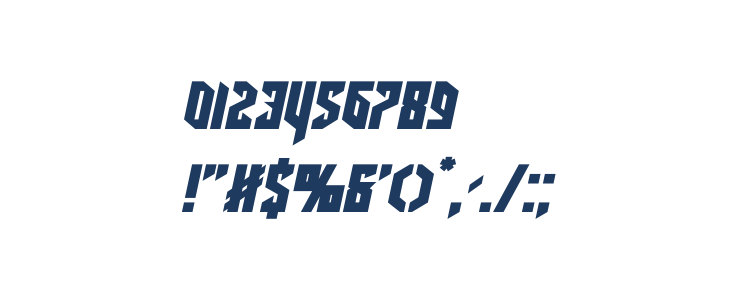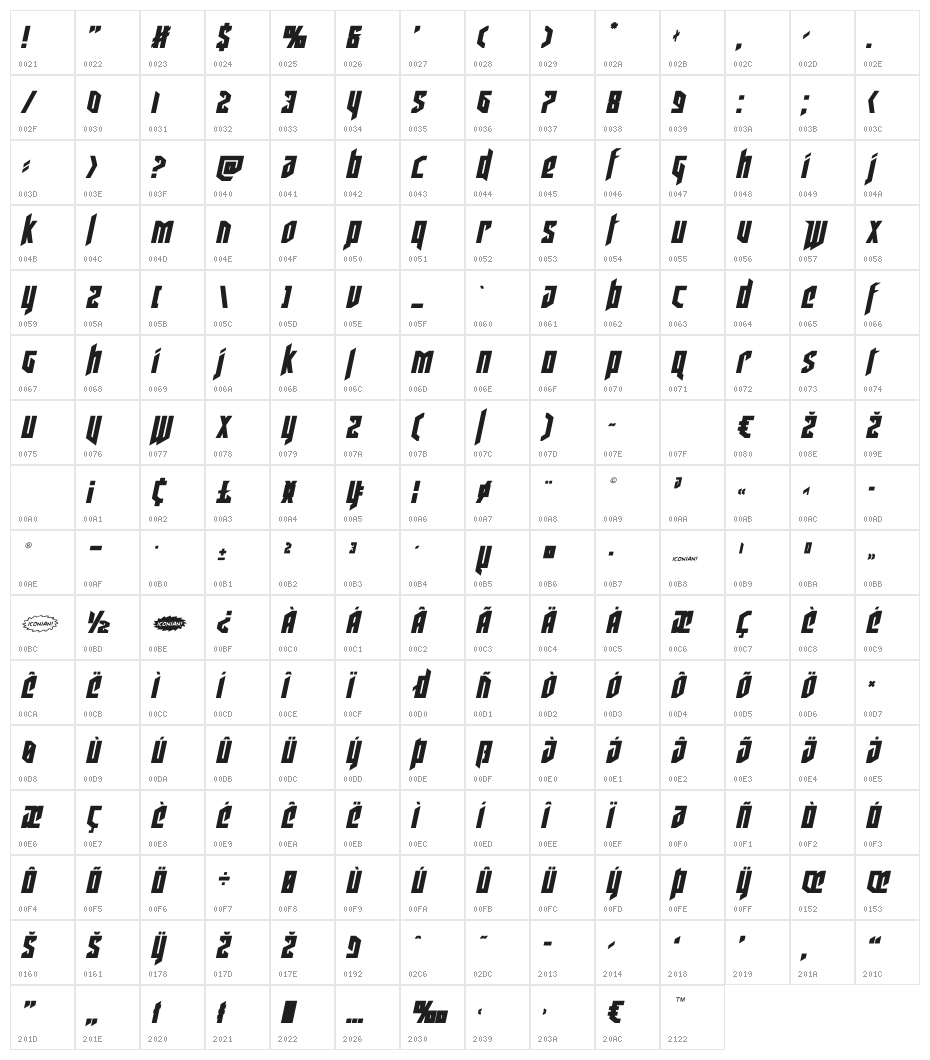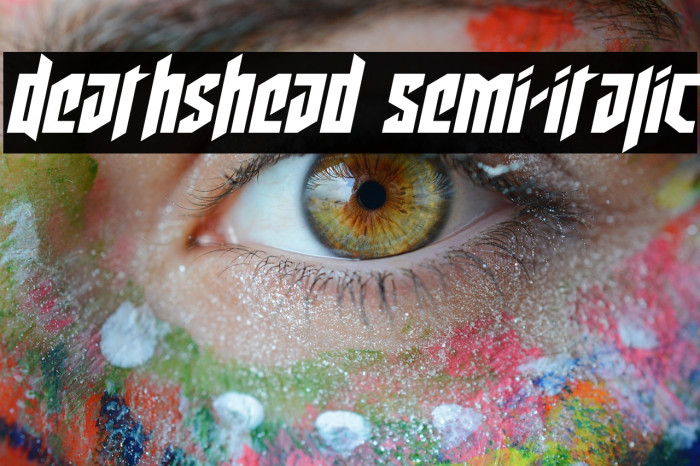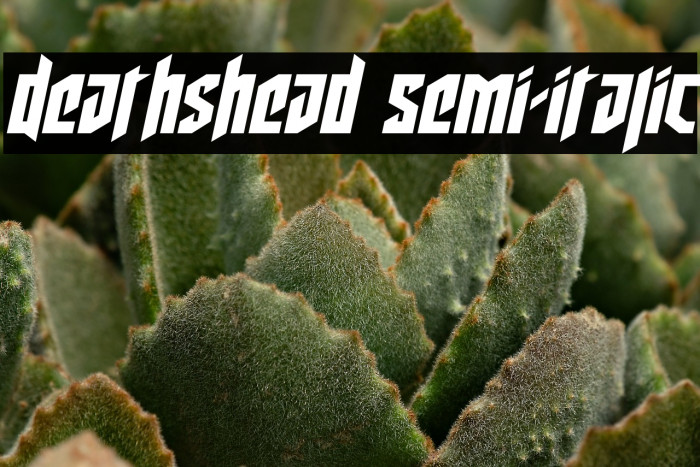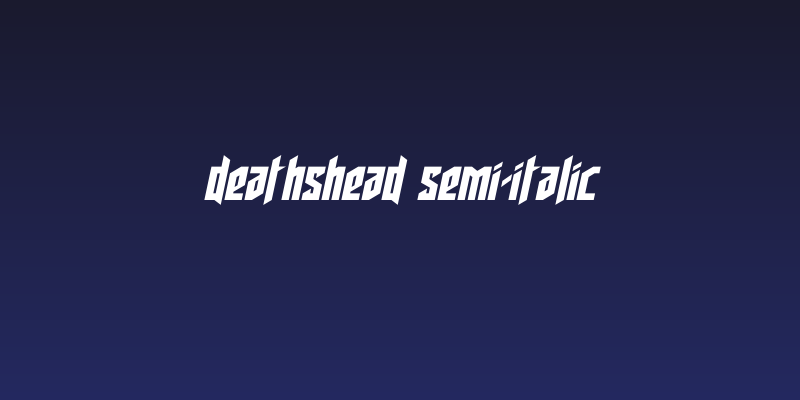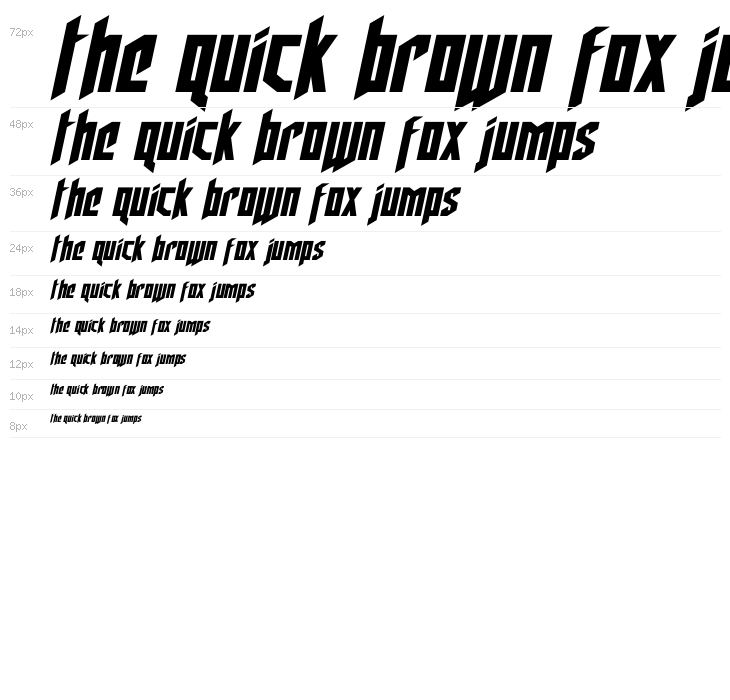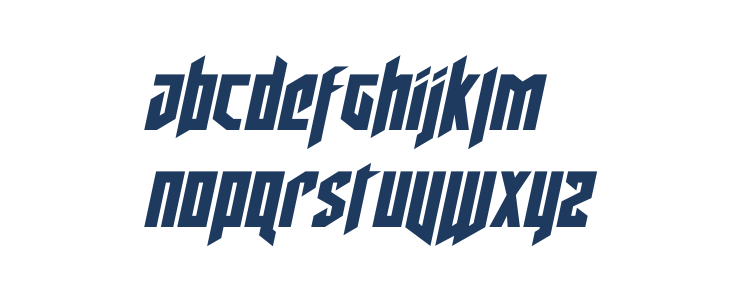
Deathshead Semi-Italic Font
Deathshead Semi-Italic Description
This font features a bold and angular design with a distinct semi-italic slant, giving it a dynamic and aggressive appearance. The characters are sharply cut with a geometric style that emphasizes sharp angles and pointed edges. The uppercase and lowercase letters maintain a consistent style, with a strong emphasis on vertical and diagonal lines. Numbers and special characters follow the same angular theme, ensuring a cohesive look across all glyphs. The font's unique style makes it stand out, suitable for projects that require a bold and impactful visual statement.
| Overall Style | Modern, Aggressive |
| Proposed Projects | Ideal for use in video game graphics, movie posters, branding for edgy or modern products, and any project requiring a bold, standout typeface. |